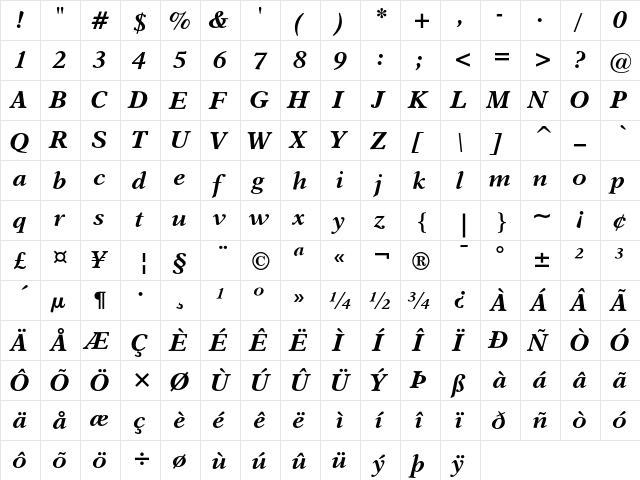
Dutch 823 Bold Italic
Design Context for Dutch 823 Typeface
Dutch 823 takes a measured approach to typography — its balanced proportions and neutral character make it a reliable workhorse for both digital and print work. The slanted form adds forward momentum and visual energy. The heavy weight commands attention and anchors typographic hierarchies.